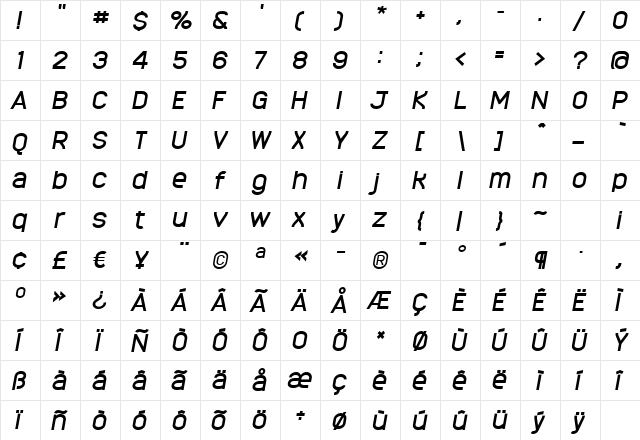
MonarkRegular Oblique Regular
Design Context for MonarkRegular Oblique Typeface
MonarkRegular Oblique takes a measured approach to typography — its balanced proportions and neutral character make it a reliable workhorse for both digital and print work. The dynamic lean of this cut emphasises speed and emphasis in any layout.
Pro Tip: Try MonarkRegular Oblique for annotation and caption copy alongside an upright companion — the contrast in angle creates a dynamic but ordered typographic system.